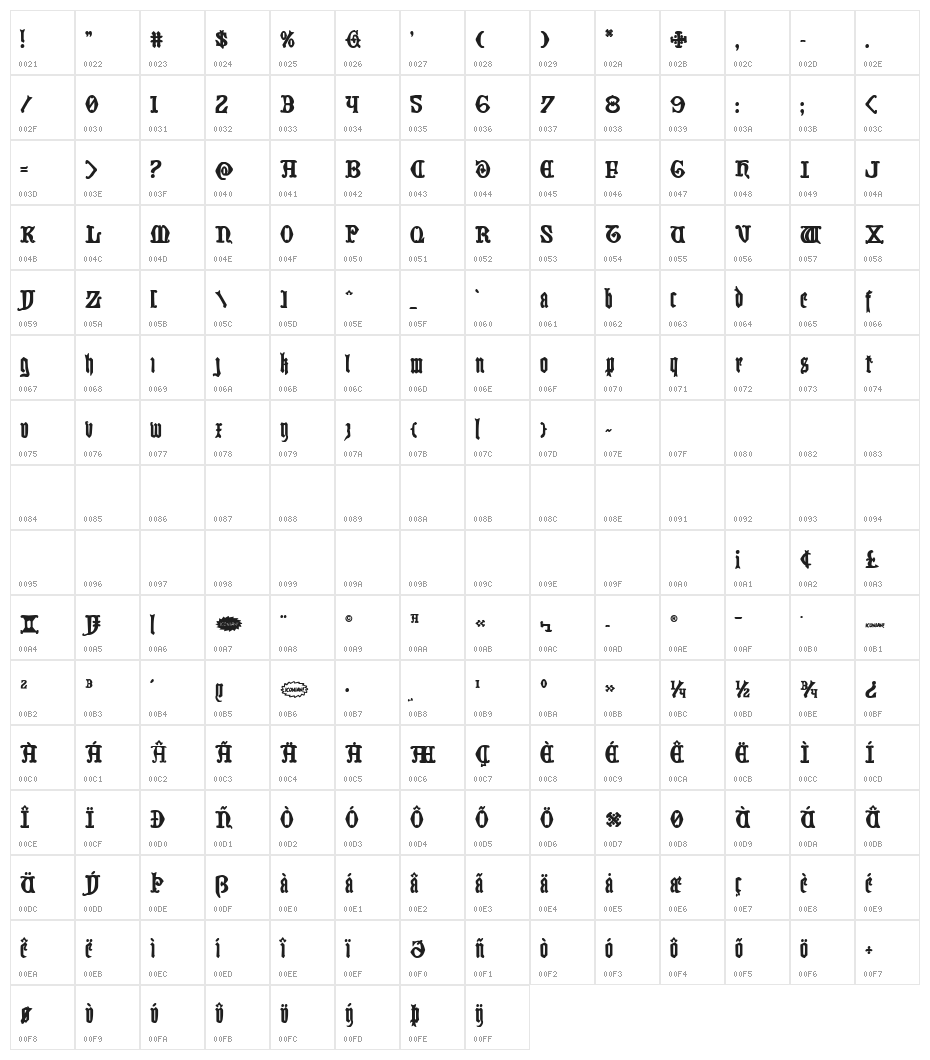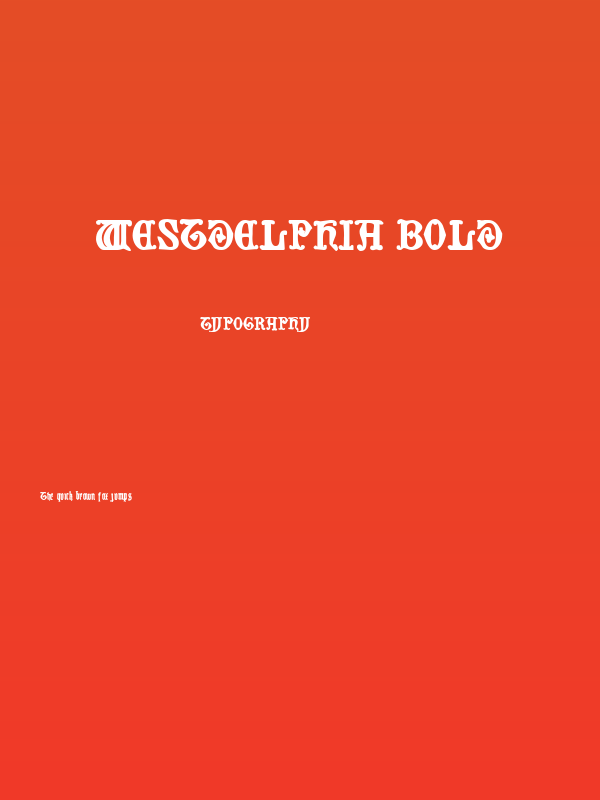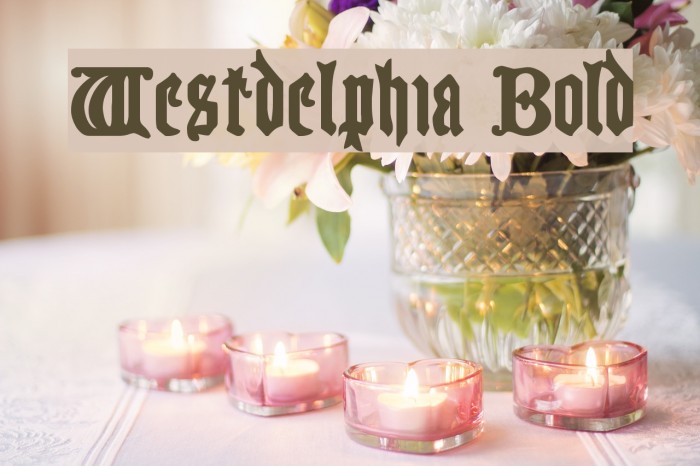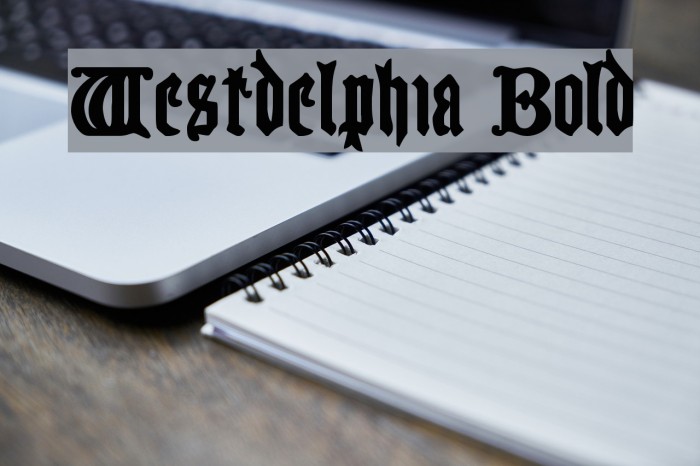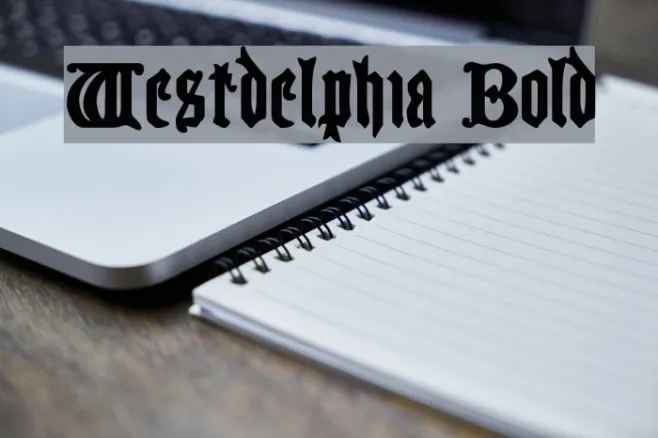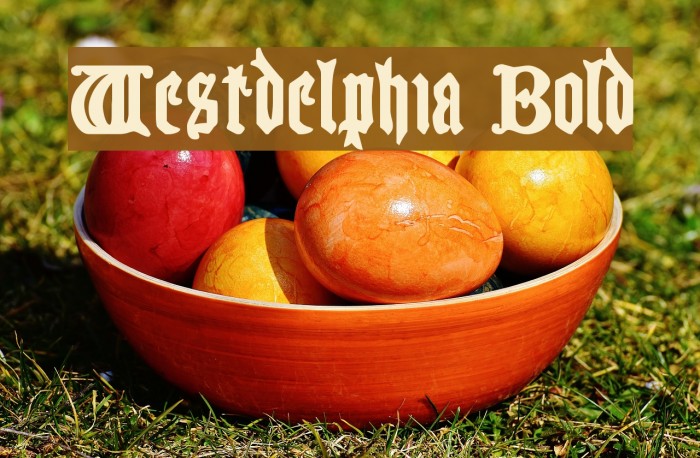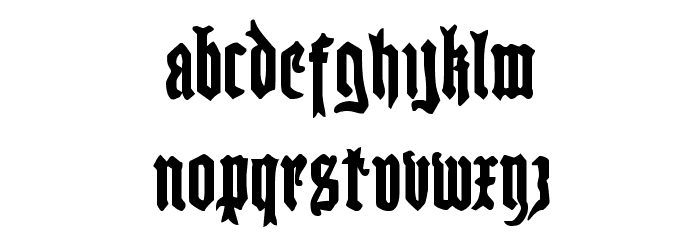
Westdelphia Bold Font
Westdelphia Bold Description
This font exhibits a bold and dramatic style with strong, thick strokes and intricate detailing reminiscent of traditional blackletter typefaces. The uppercase letters are ornate, with flourishes and sharp angles that give them a commanding presence. The lowercase letters maintain the same decorative quality, with a slightly more condensed form. Numbers and special characters are designed to match the elaborate style, ensuring consistency across all elements. The overall appearance is both historic and theatrical, making it ideal for projects that require a touch of elegance and grandeur.
| Proposed Projects | Ideal for use in posters, event invitations, branding for luxury products, or any project that requires a historic or dramatic flair. |